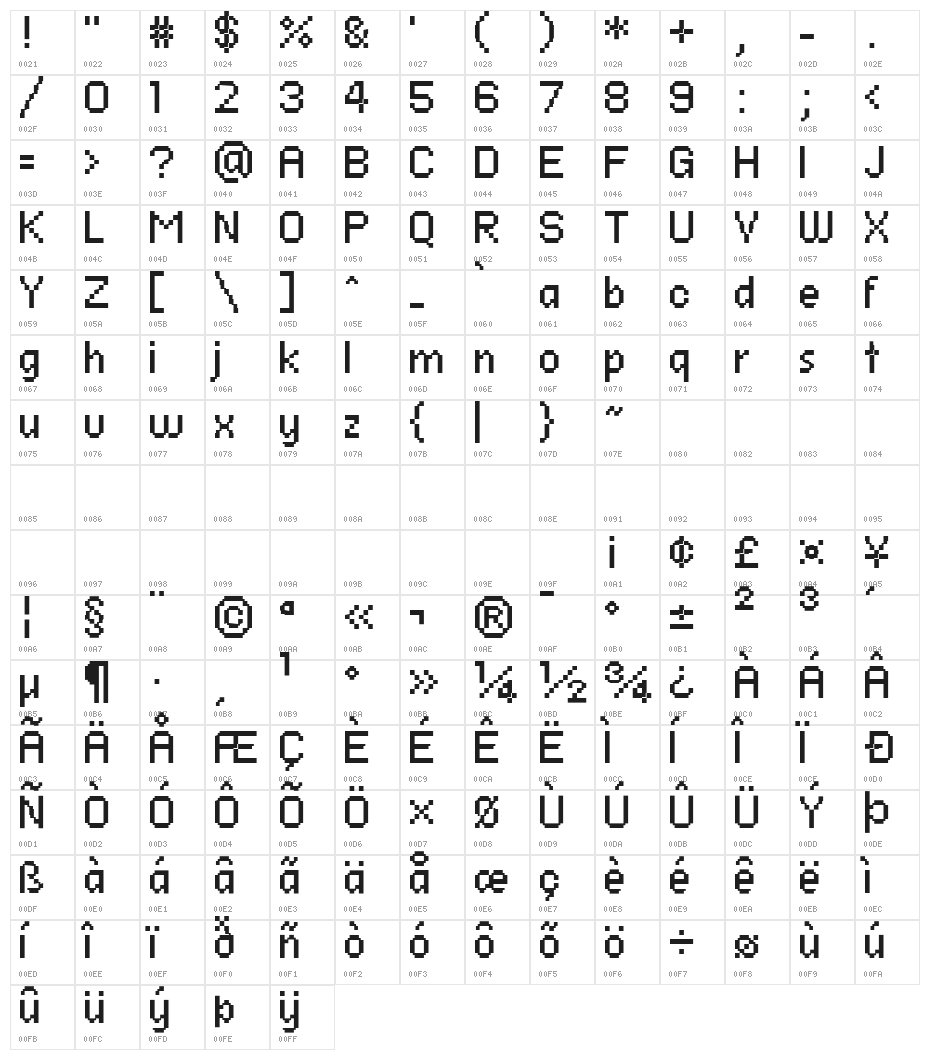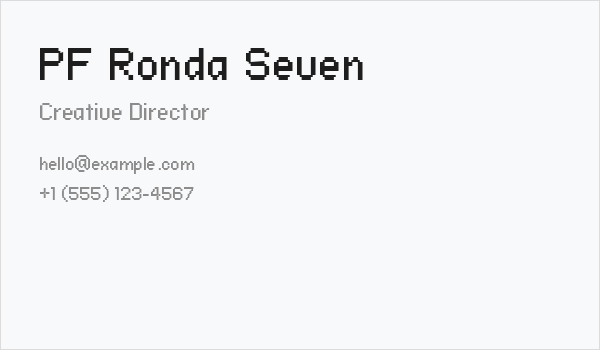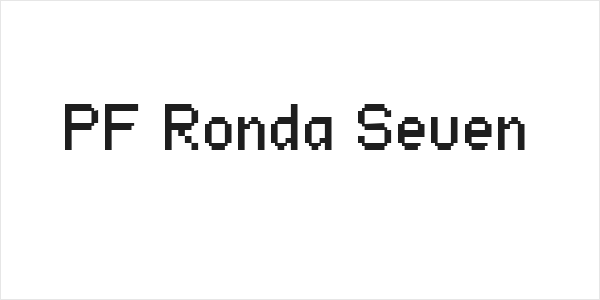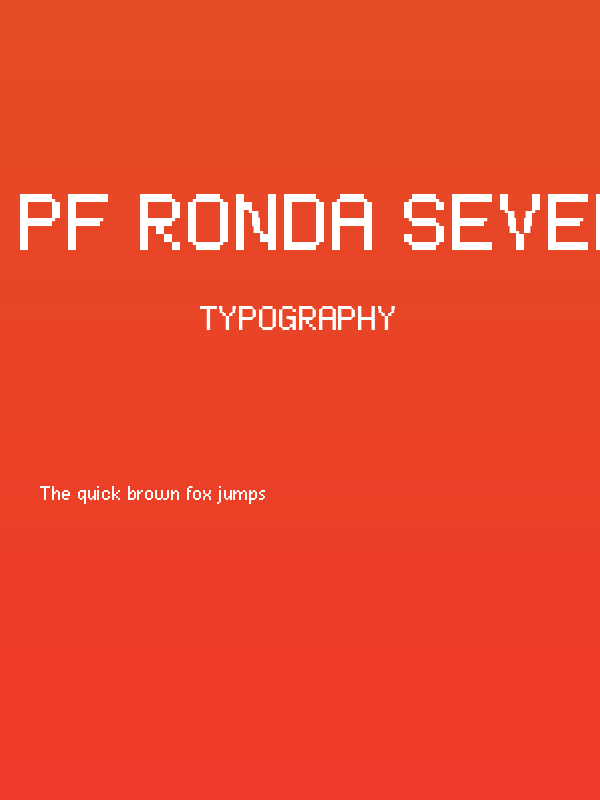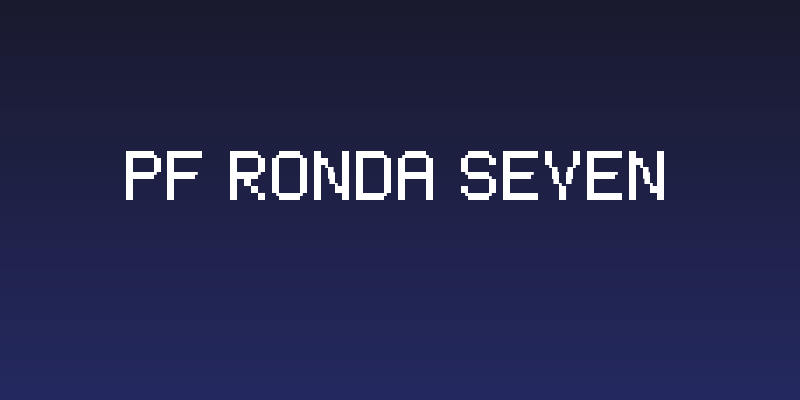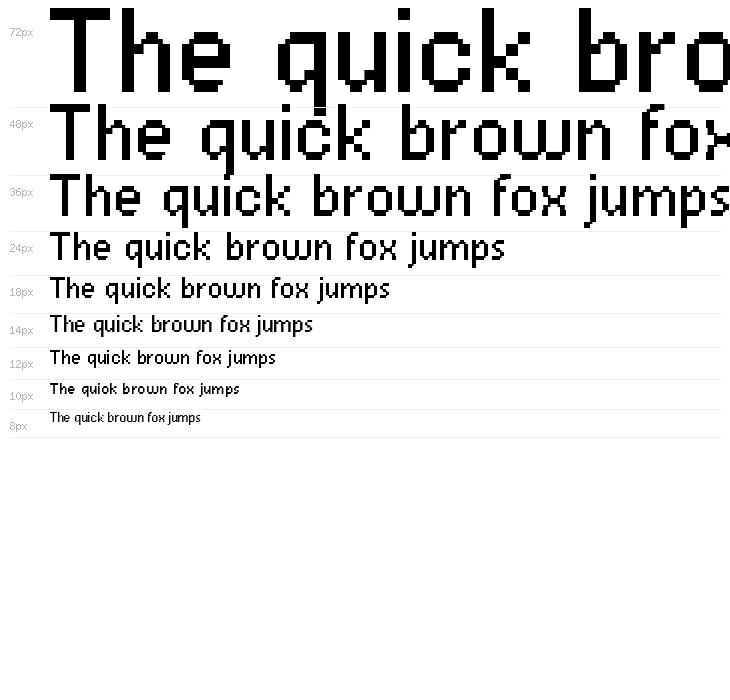
PF Ronda Seven Font
PF Ronda Seven Description
This font features a pixelated, blocky design reminiscent of early digital displays and retro video games. Each character is constructed with a grid-like precision, giving it a distinctly digital and geometric appearance. The uppercase and lowercase letters maintain a consistent height, contributing to a uniform look across the text. The numerals and special characters follow the same pixelated style, ensuring cohesion throughout. This font's simplicity and clarity make it highly legible, even at smaller sizes, while its unique aesthetic adds a nostalgic charm.
Overall StyleRetro, Digital
Use CaseLogos, Headlines, Digital Art
Proposed ProjectsIdeal for retro-themed designs, video game graphics, digital art projects, and any creative work seeking a nostalgic, digital look.